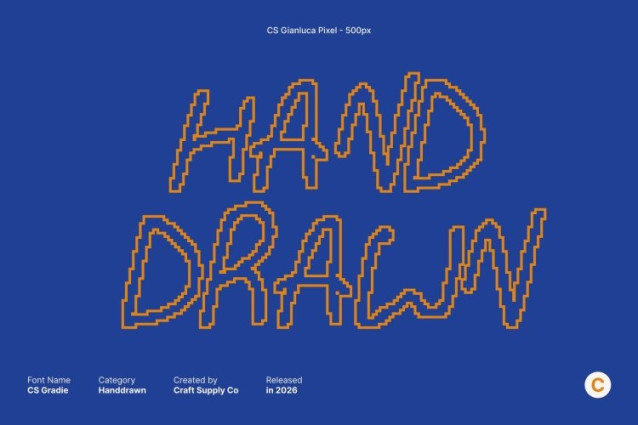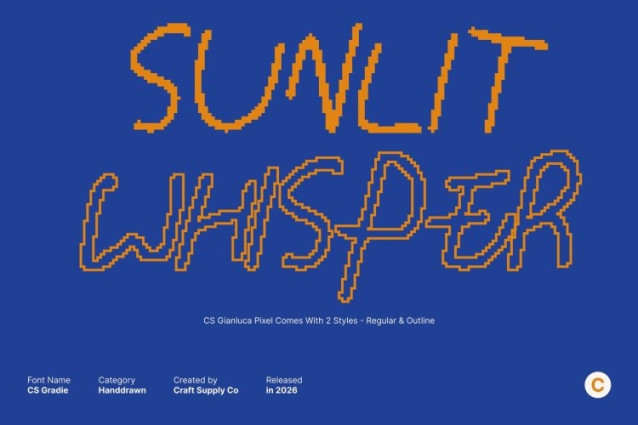
CS Gianluca Pixel Font
CS Gianluca Pixel Font This is a gritty yet stylish messy display font that confidently embraces imperfection. Designed with irregular, spontaneous, and scribble-like letterforms, it captures the spirit of unfiltered creativity refined through a subtle pixel-based structure. Each character bursts with personality and unpredictability, delivering a hand-drawn charm that feels alive, expressive, and authentically human.
Irregular Pixel Shapes with Unique Visual Rhythm
Uneven strokes, sketch-inspired forms, and rough edges define the visual rhythm of this font. Its intentionally messy construction creates texture and movement while pixel precision keeps it legible and screen-ready. The result is a font that celebrates individuality and artistic rebellion imperfect in all the right ways.
Fun, Energetic, and Full of Creative Motion
Radiating fun and spontaneity, this font is perfect for casual, playful, and youth-oriented designs. From children’s projects and quirky posters to expressive branding and social media graphics, it adds warmth, humor, and bold personality. Its messy look captures the joy of doodling and free creative expression.
Perfect for Playful, Handmade, and Expressive Projects
This font shines in kids’ designs, handmade crafts, lifestyle visuals, fun packaging, and creative campaigns. It’s not about precision it’s about personality. This font celebrates creativity in its rawest form, bringing energy, authenticity, and playful attitude to every design.